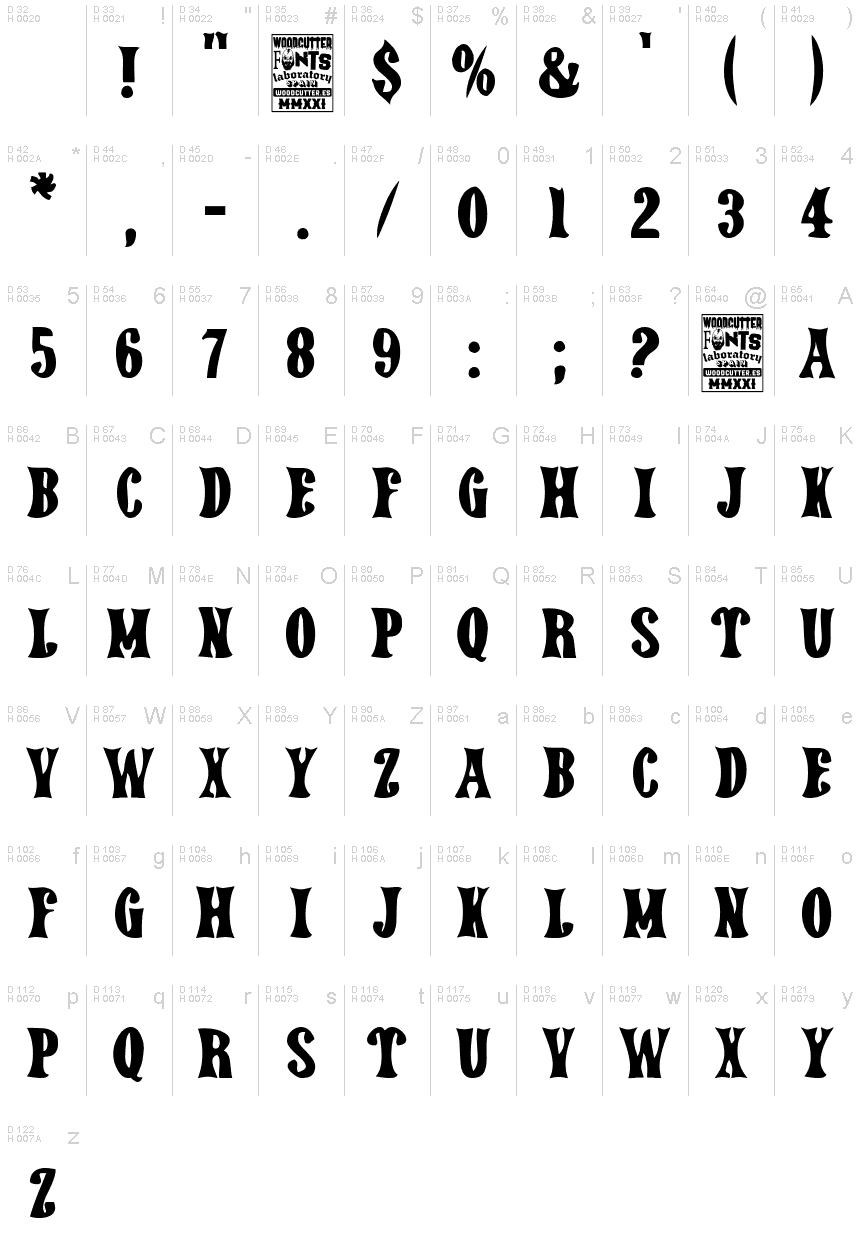
Far Away Home
Far Away Home, the latest creation by Woodcutter Manero, is a groovy display font that's sure to transport you back to the psychedelic 70s. Its bold and condensed letters are perfect for creating eye-catching headlines and titles that demand attention. This font is ideal for projects ranging from retro album covers to vintage-inspired posters to groovy t-shirt designs. Let Far Away Home take your designs on a journey through time and space, making them stand out from the crowd with its unique style and flair.